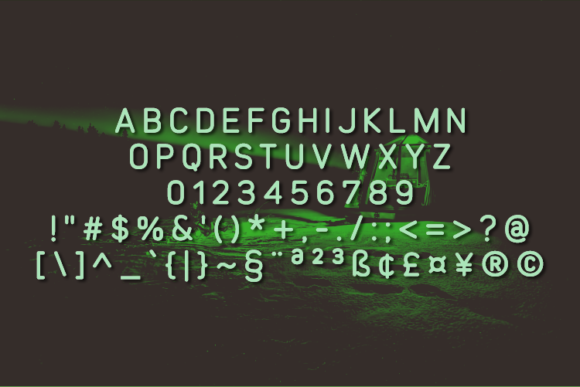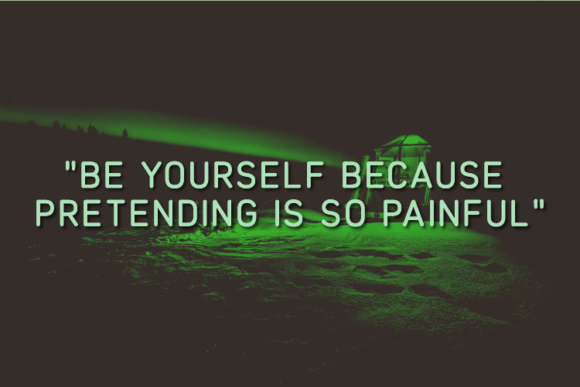
Introduction to Leandreo Font
Leandreo is a minimal and neat sans serif font.
Key Features of Leandreo Font
Why Choose Leandreo Font?
Leandreo Font offers exceptional quality and versatility, making it a valuable addition to your design toolkit. Whether you’re creating for personal projects or commercial use, Leandreo Font delivers professional results.